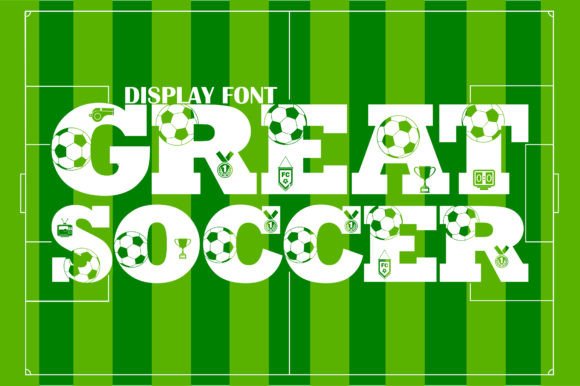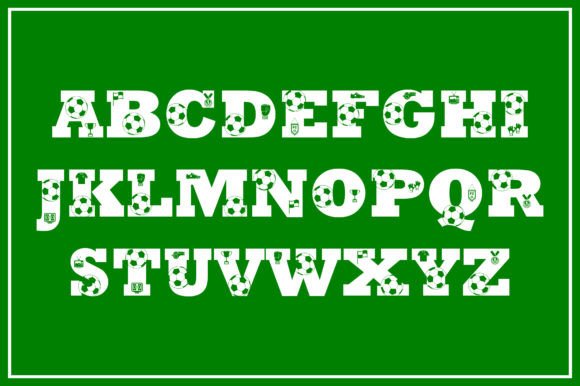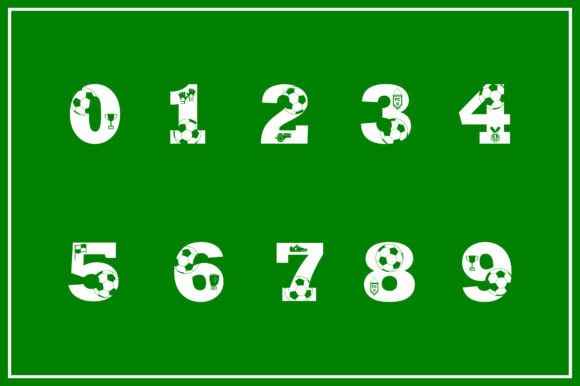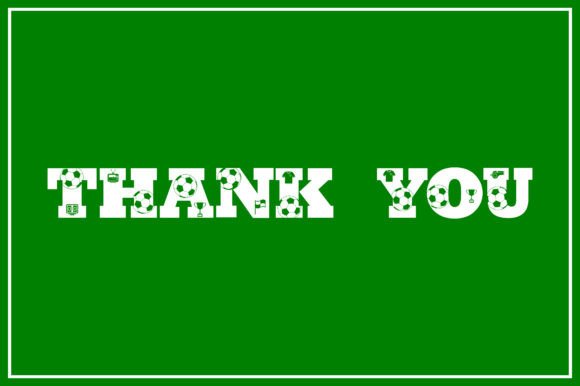
Great Soccer Font
About the Great Soccer Font
Presenting Great Soccer Font, a unique and stylish typeface that will make your work stand out. Great Soccer is a fun and dynamic decorative display font. It is perfectly suitable for any design or crafty idea! Add it confidently to your projects and you will love the results.
Great Soccer’s playful energy makes it ideal for headlines, posters, and branding projects needing a bold, youthful feel. It excels in short, impactful text, such as logos, t-shirt designs, or social media graphics. However, its decorative nature makes it less suitable for body copy or UI elements requiring high readability.
Pairing it with a clean sans-serif like Open Sans for body text provides a strong contrast, balancing the font’s dynamism. For a more sophisticated feel, consider pairing it with a classic serif like Garamond for secondary text elements.
Its core personality is energetic and friendly, making it a great choice for brands targeting a young, active audience, particularly in sports, entertainment, or children’s products.
Great Soccer Font Usage Examples
Great Soccer Font Example